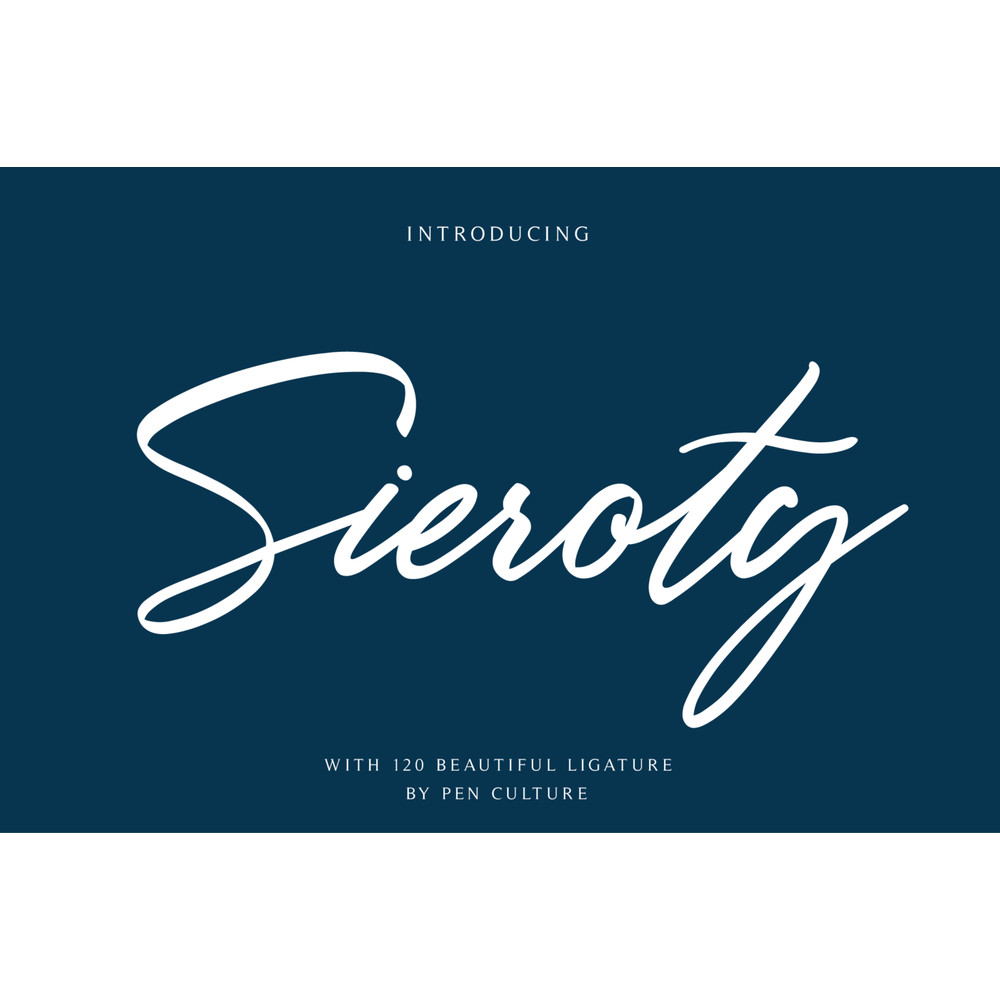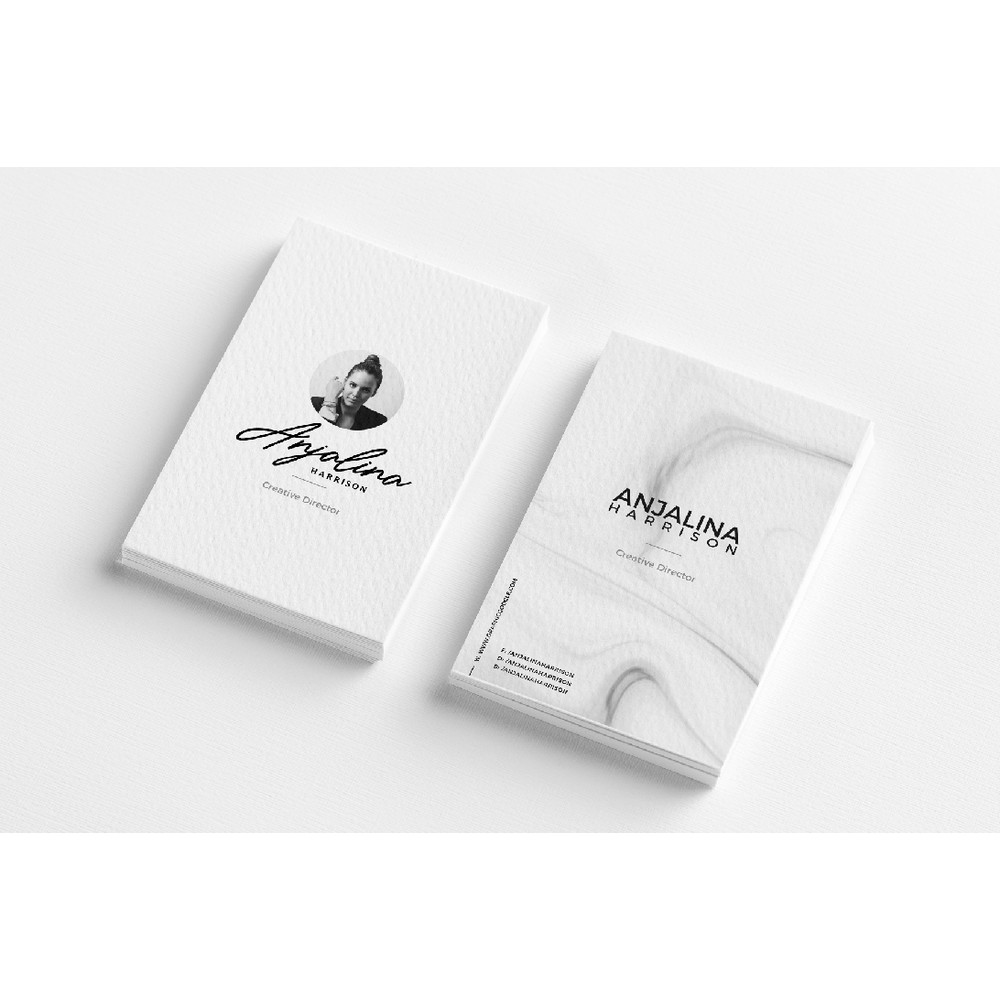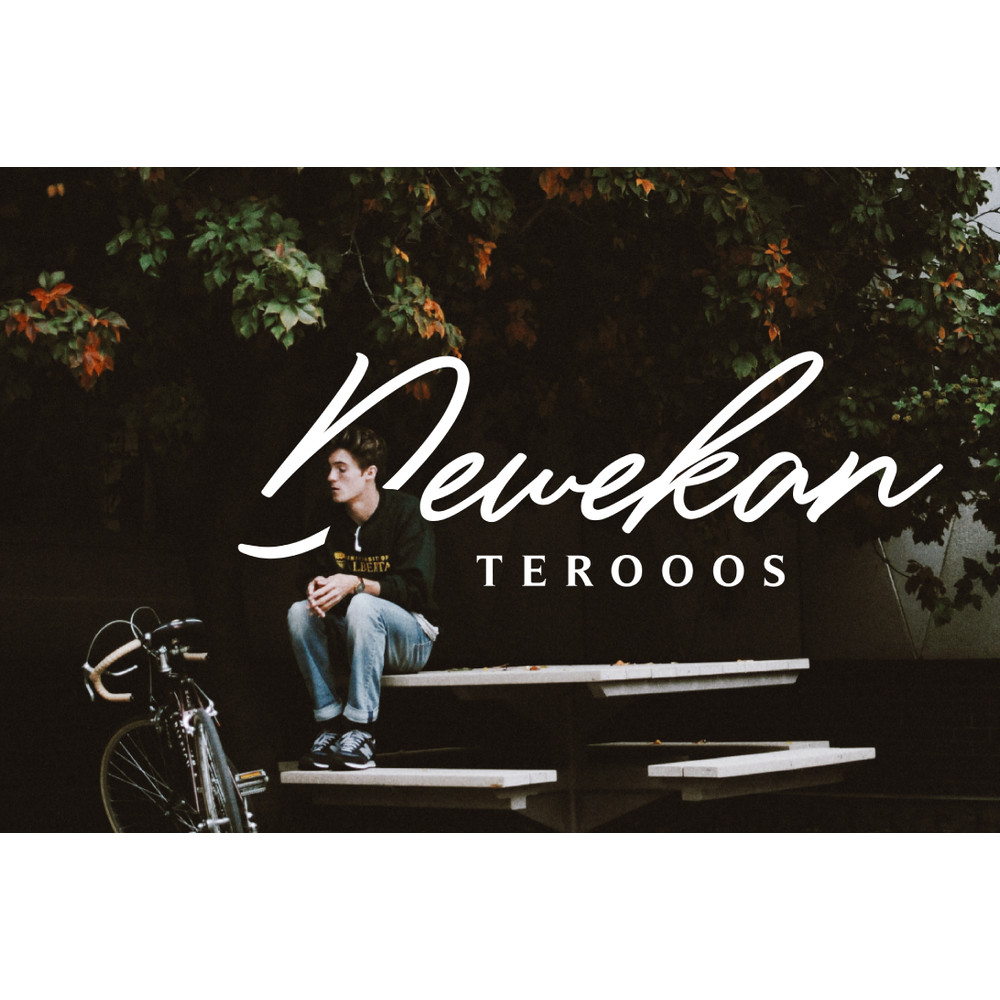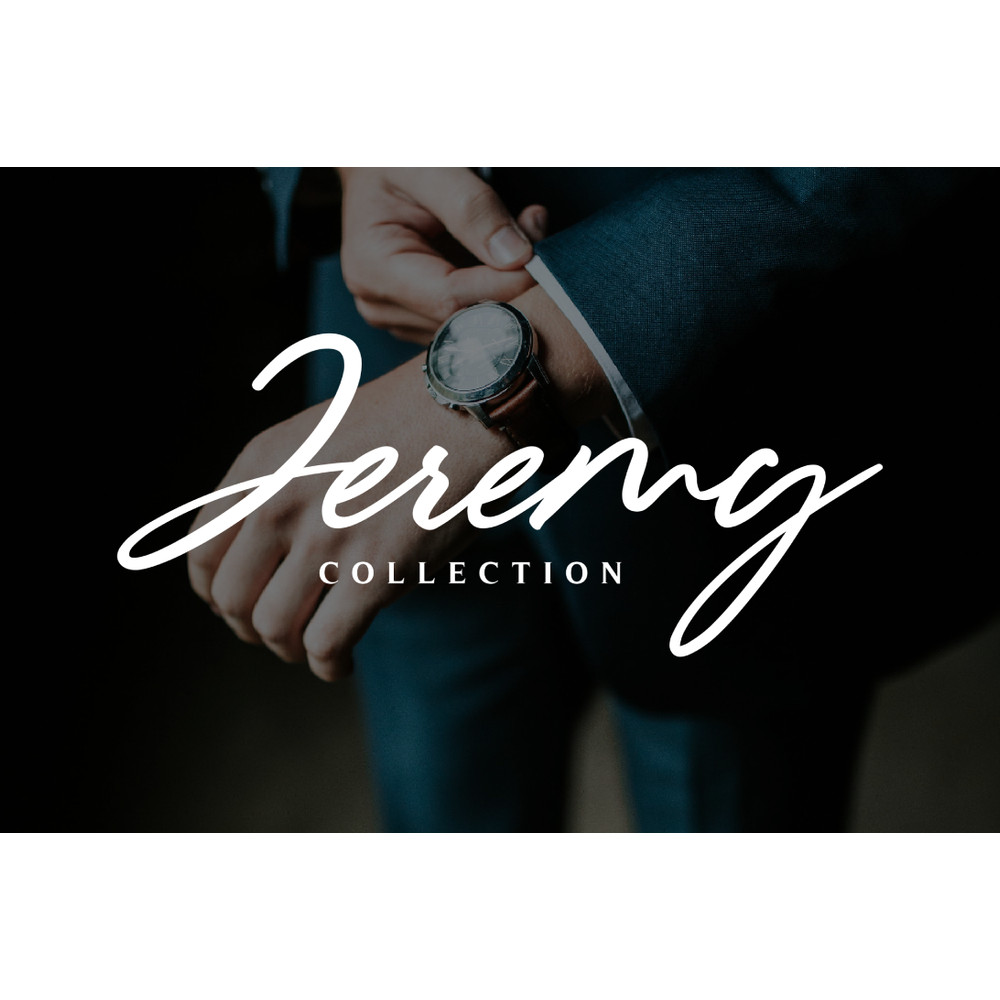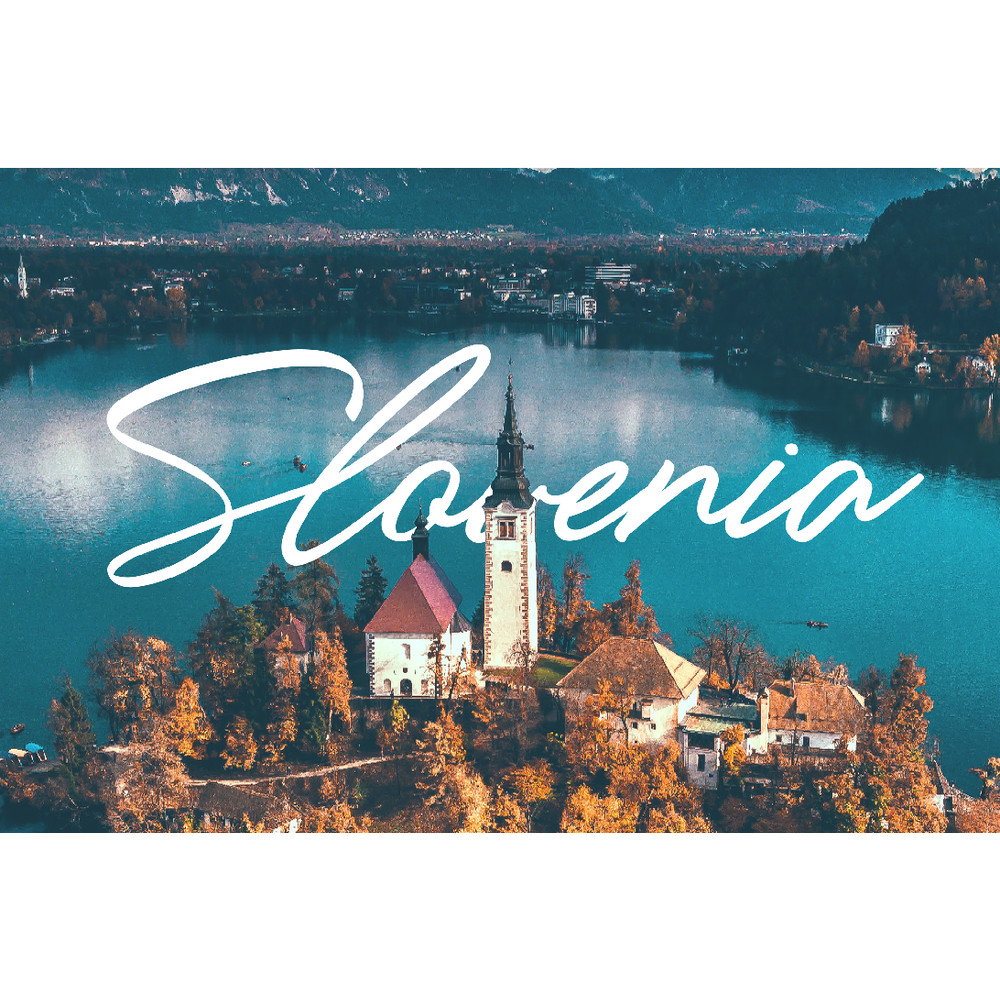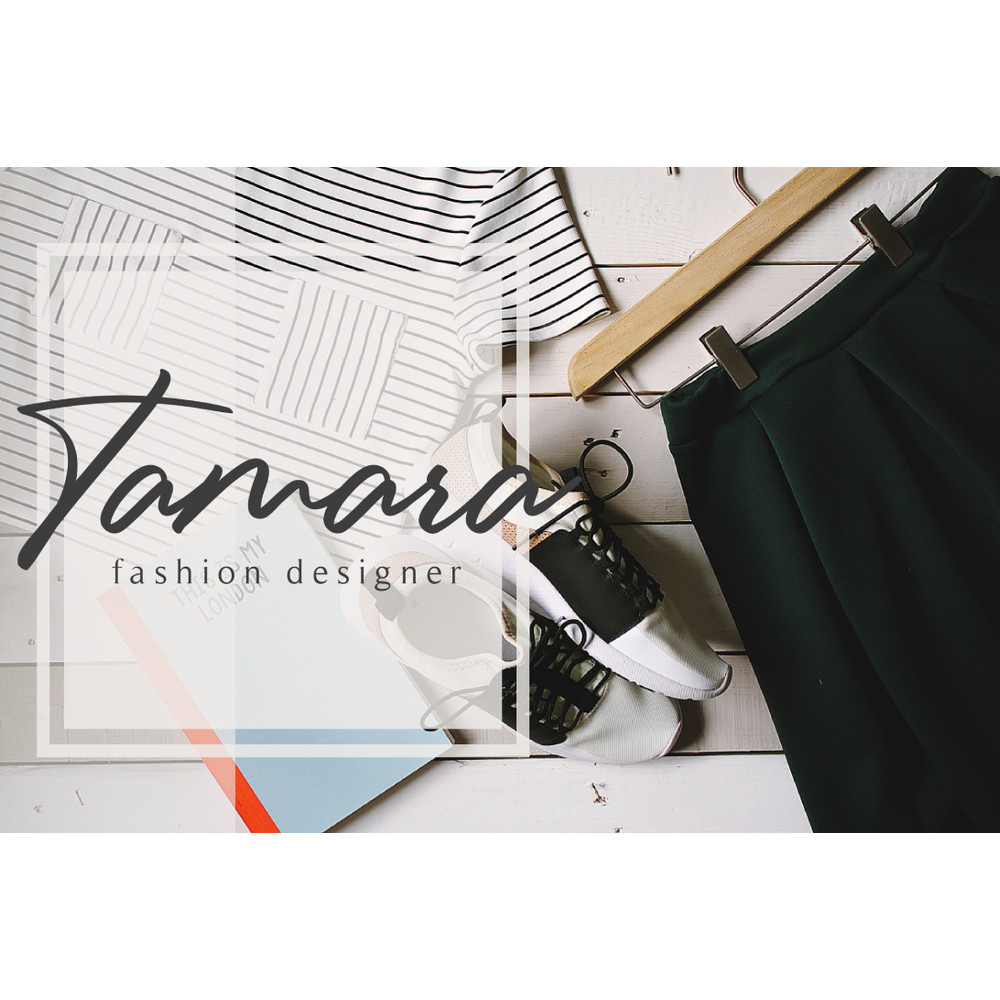
Sieroty has features that makes the font look more natural and easy to use. This fonts can be used in various uses such as watermarks, signature and signature logos, business cards, brand names, and many more.
Feature and what will you get:
– All Caps
– 120 Beautiful Ligature
– Multilingual Support : ÀÁÂÃÄÅÆÇÈÉÊËÌÍÎÏÐÑÒÓÔÕÖØÙÚÛÜÝßàáâãäåæçèéêëìíîïðñòóôõöøùúûüýÿ
– Pua Encoded